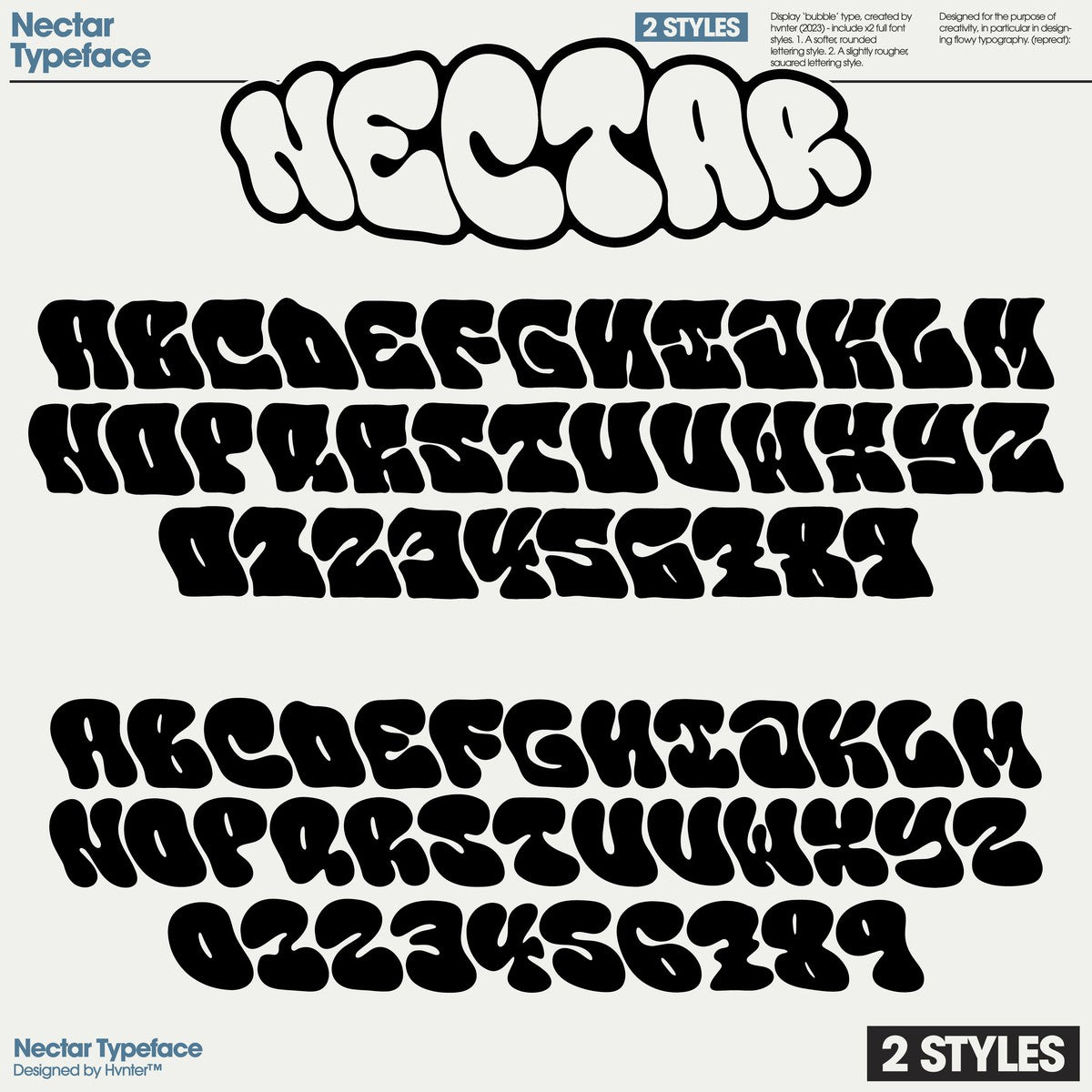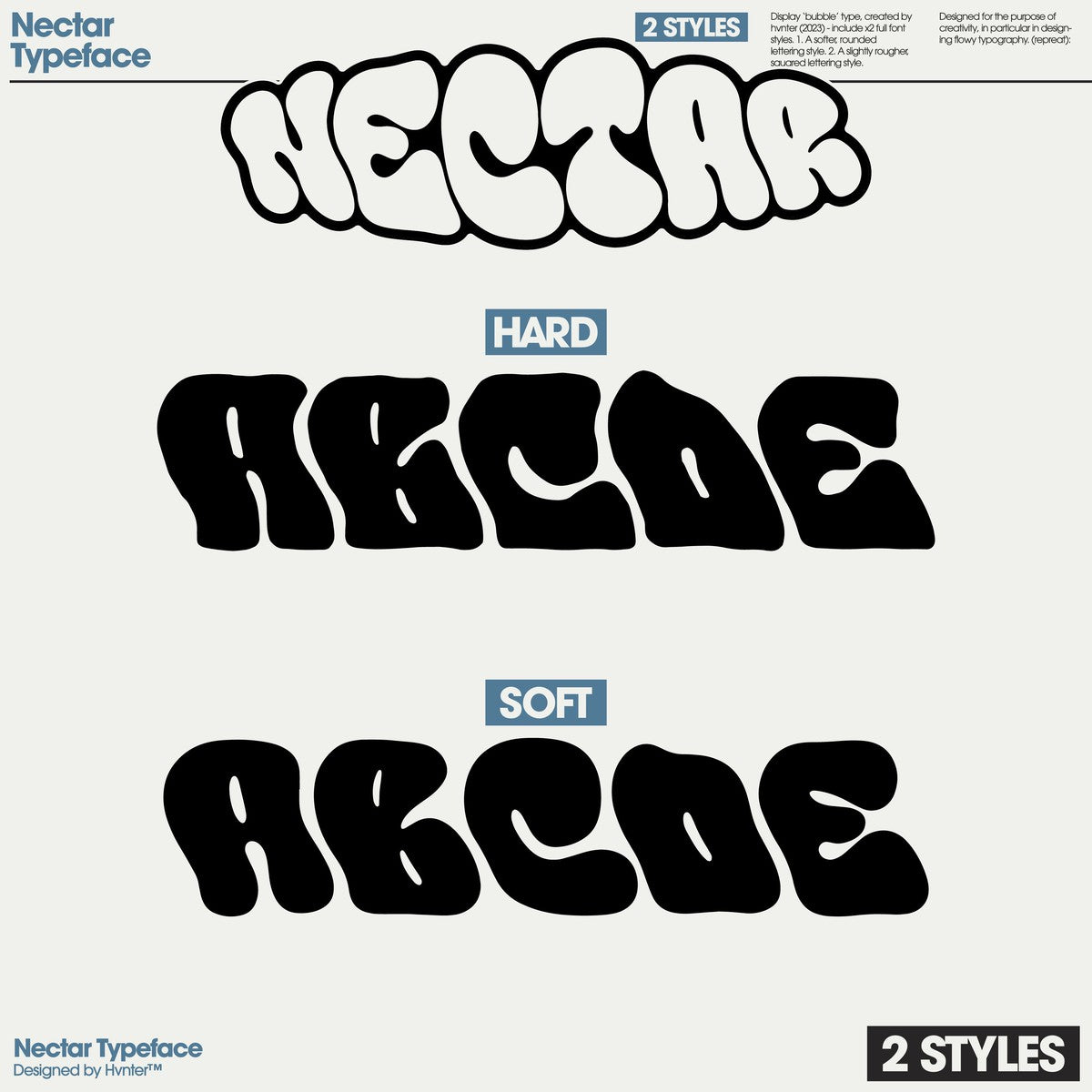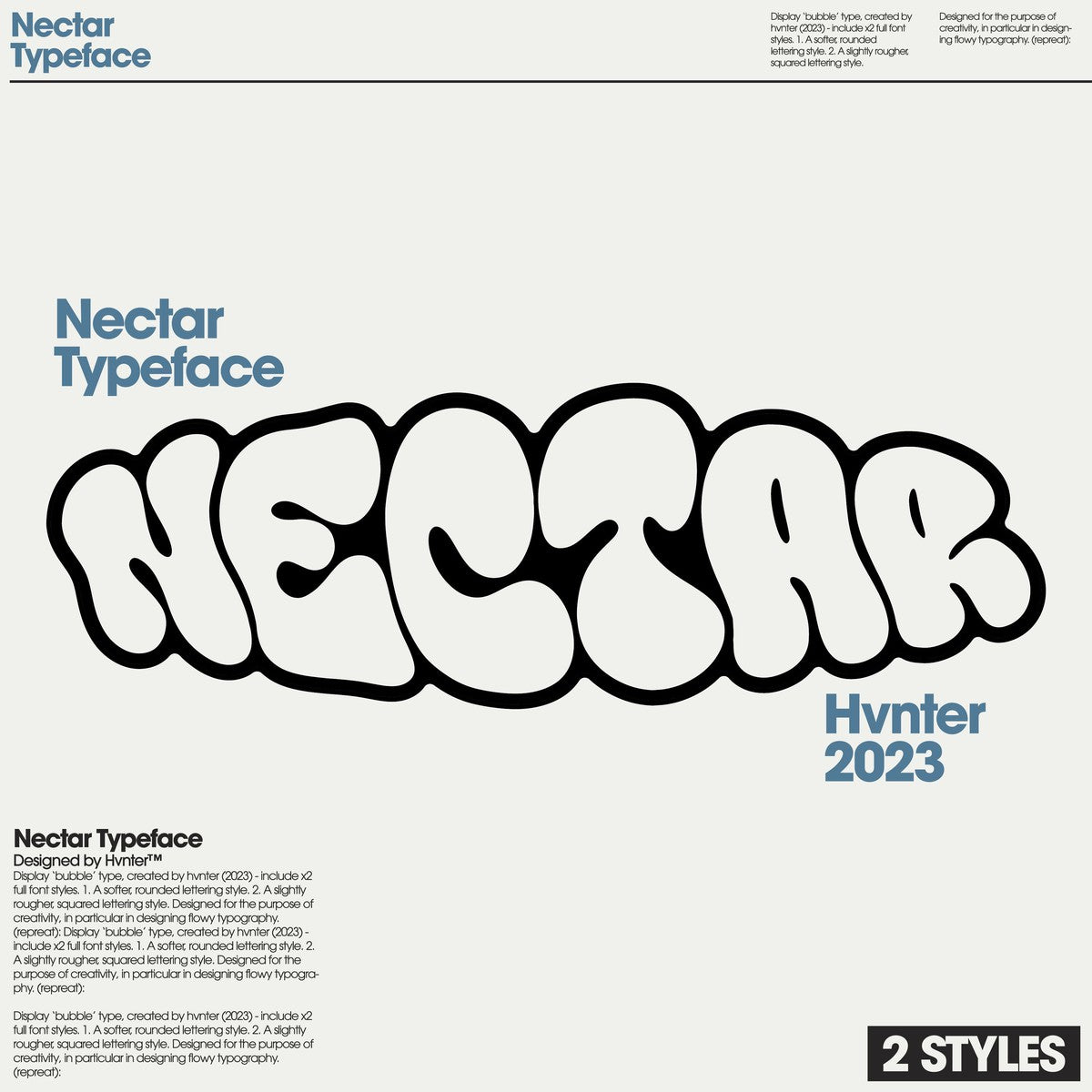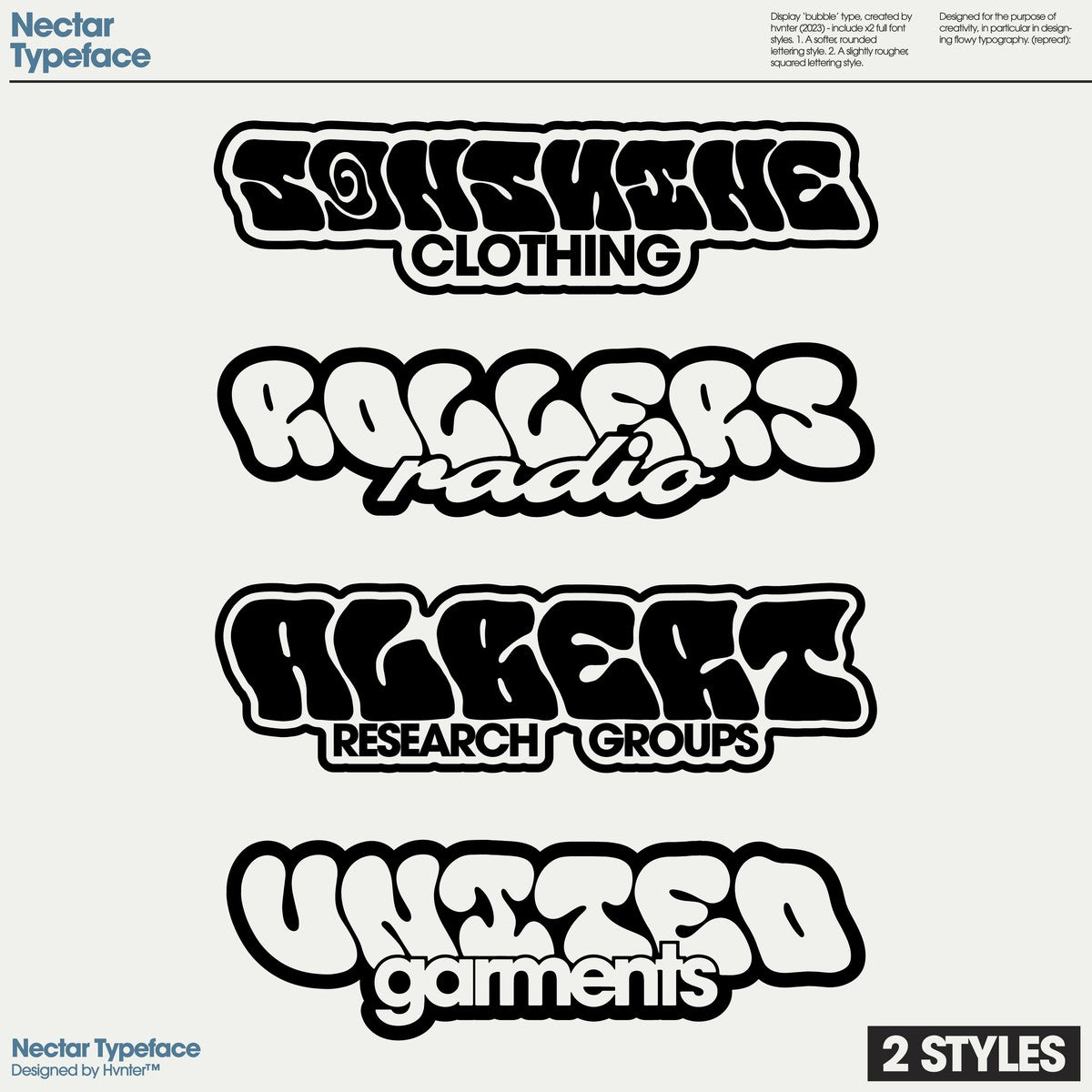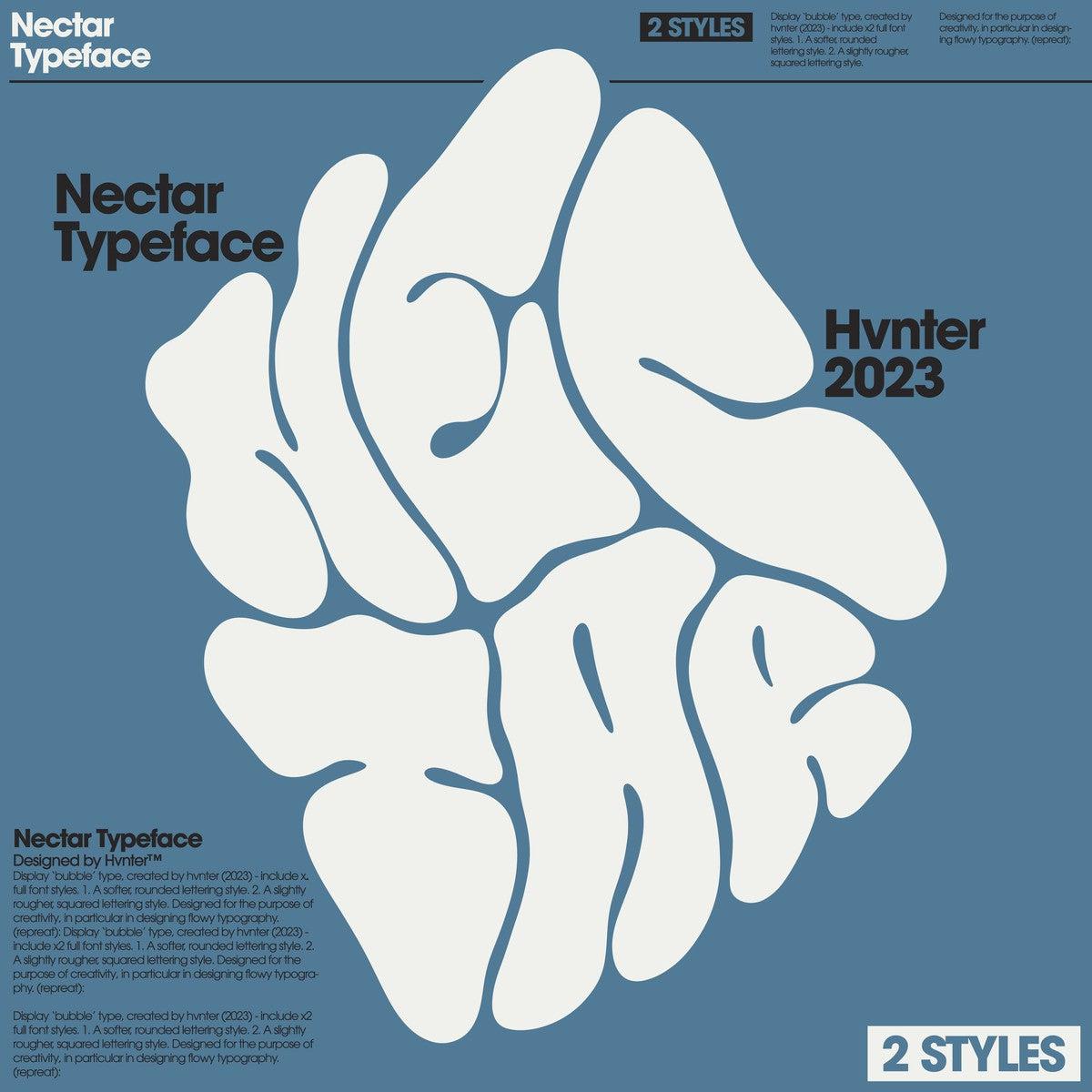
Nectar Typeface
The Nectar Typeface is a hand-drawn display font that includes two styles: A-Z, 0-9, and basic symbols. It is tagged as a graffiti, display type, Y2K, bubble, and cool font. Compatibility details are not specified.
Ideal for unique and expressive graphic design projects. Perfect for posters, branding, album covers, and merchandise, ensuring a distinctive and artistic visual impact.